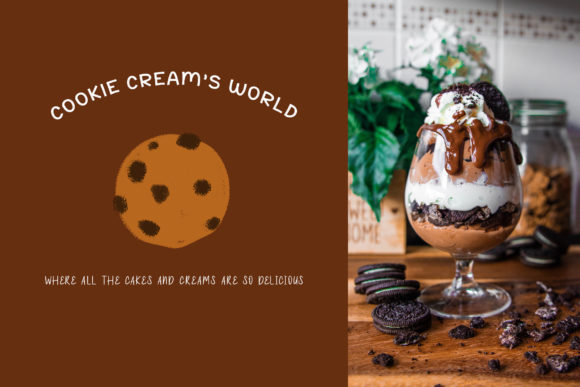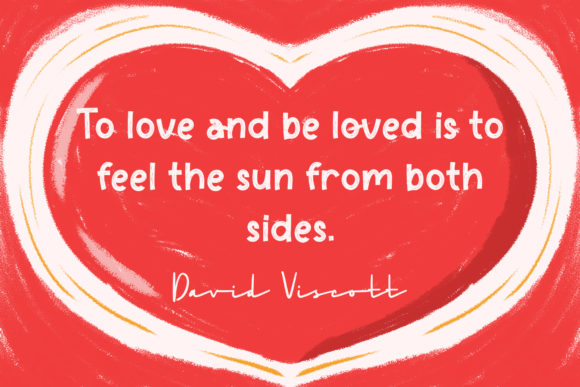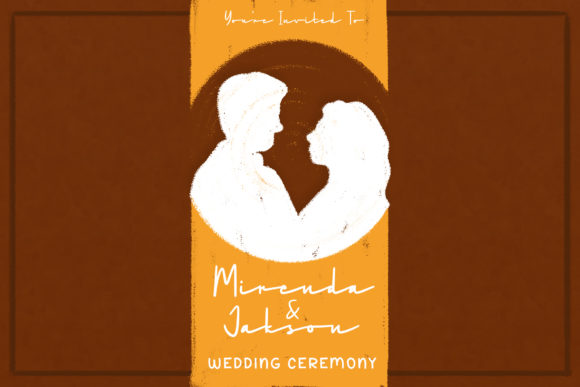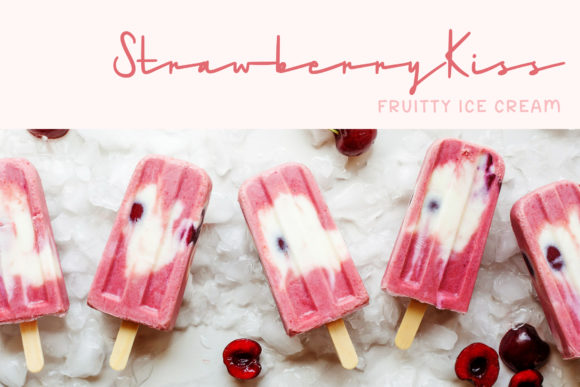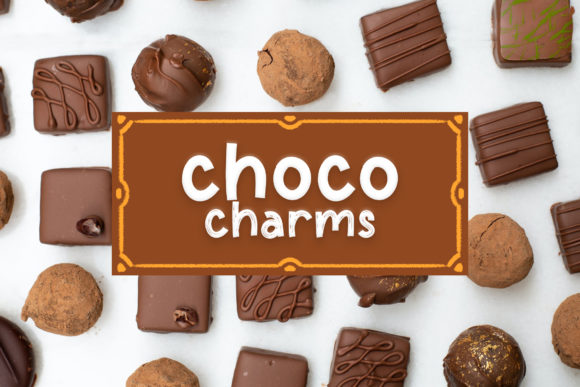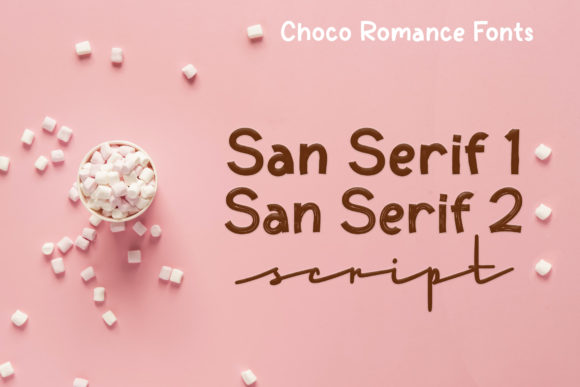
Indulge in the Sweetness of Choco Romance Font
Do you ever get that spark of creativity in the middle of the night, where a beautiful idea just pops into your head and refuses to leave your thoughts? That’s exactly what happened to me when I stumbled upon the Choco Romance Font. Its charming, handwritten style had me hooked from the very start.
This beautiful duo styled font is a dream come true for designers looking to add a touch of elegance to their craft designs. Choco Romance Font is simple, easy to use, and pairs perfectly with a variety of creative projects. Its versatility makes it a valuable addition to any designer’s toolkit, and its romantic feel is sure to make any project feel special.
Whether you’re a seasoned designer or just starting out, the Choco Romance Font is a must-have for anyone looking to add a touch of whimsy and romance to their work.
Key Features of Choco Romance Font
- Font Family: Choco Romance, with 6 styles: Regular, Bold, Italic, Bold Italic, Light, and Light Italic.
- Unique Characteristics: The Choco Romance font features a unique, cursive design with a romantic and whimsical feel, making it perfect for wedding invitations, love letters, and other sentimental projects.
Choco Romance Font Review
First off, I have to say that I’m a big fan of the Choco Romance Font’s overall aesthetic. The ✨ whimsical touch it adds to any design is undeniable. It’s perfect for adding a touch of romance and playfulness to your project. The font’s curves and flourishes are well-executed, making it a great choice for Valentine’s Day-themed designs or anything that requires a touch of sweetness.
The font also comes in a range of weights and styles, which is always a plus. It’s great to have the flexibility to choose the perfect variant for your design.
- ✨ Whimsical aesthetic
- Range of weights and styles
- Perfect for romance and playfulness
- ⚠️ Limited legibility at small font sizes
- ⚠️ May not be suitable for formal or corporate designs
Overall, I think the Choco Romance Font is a great choice for designers looking to add a touch of whimsy to their projects. While it may have some limitations, it’s definitely worth considering for the right type of design.
The Choco Romance font is perfect for:
- Valentine’s Day and love-themed designs.
- Romantic social media posts and captions.
For optimal use, pair the Choco Romance font with pastel colors and delicate graphics.
Alternatives to Choco Romance Font
Great Vibes is a beautiful, elegant script font perfect for creating a romantic and whimsical atmosphere. It’s ideal for wedding invitations, love letters, and other designs that require a touch of sophistication and playfulness. Great Vibes has a similar cursive feel to Choco Romance Font, but with a more refined and delicate appearance.
Carolyna Pro is a modern, luxurious script font that exudes elegance and sophistication. It’s perfect for high-end designs, such as luxury branding, wedding stationery, and fine art prints. While Choco Romance Font has a more playful feel, Carolyna Pro is more refined and polished, making it a great alternative for designers looking for a more upscale look.
Playfair Display is a luxurious, elegant serif font that’s perfect for creating a sense of grandeur and sophistication. It’s ideal for high-end designs, such as luxury branding, fine art prints, and special occasion invitations. Playfair Display has a more classic and formal feel compared to Choco Romance Font, making it a great alternative for designers looking for a more traditional look.